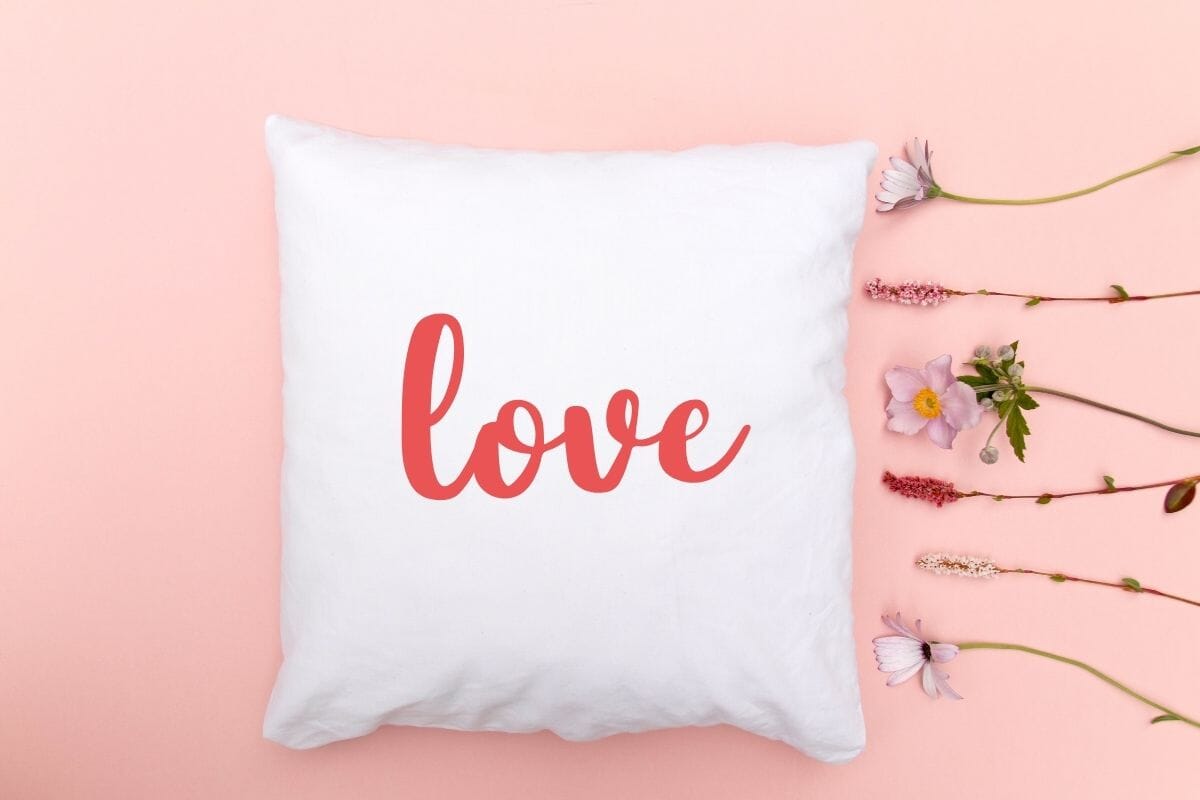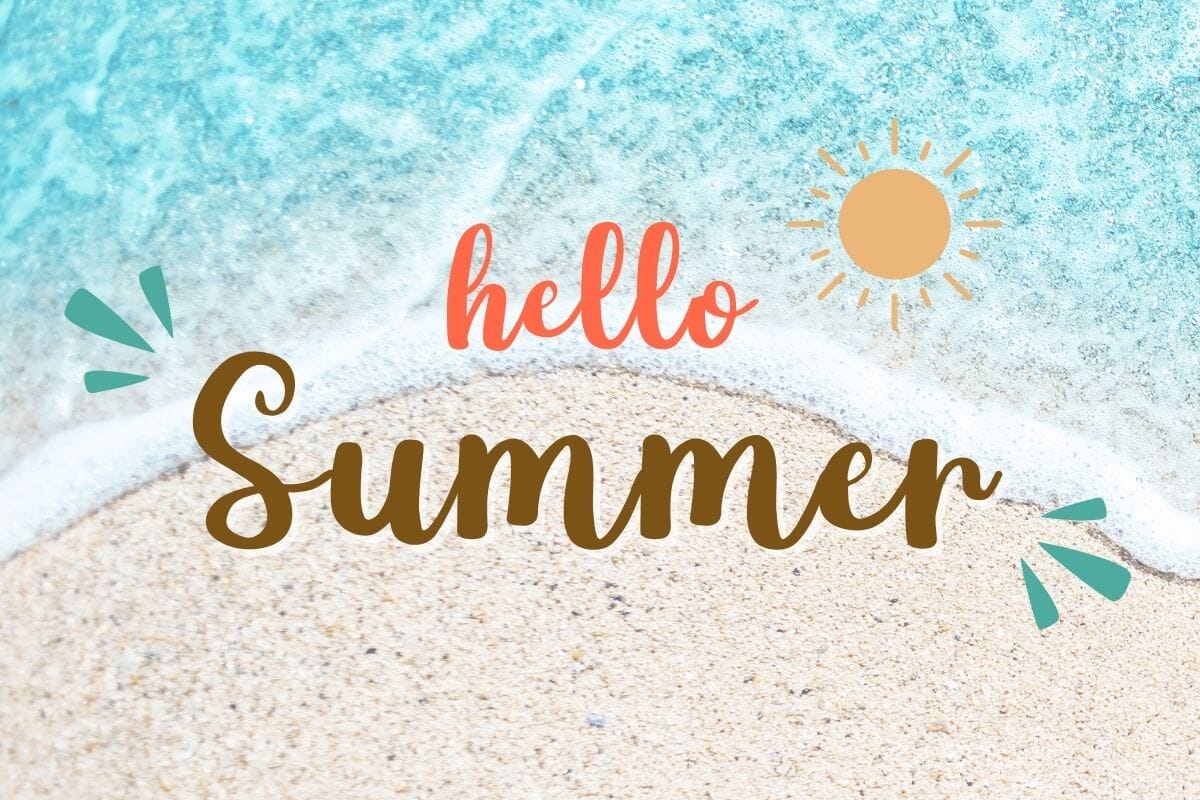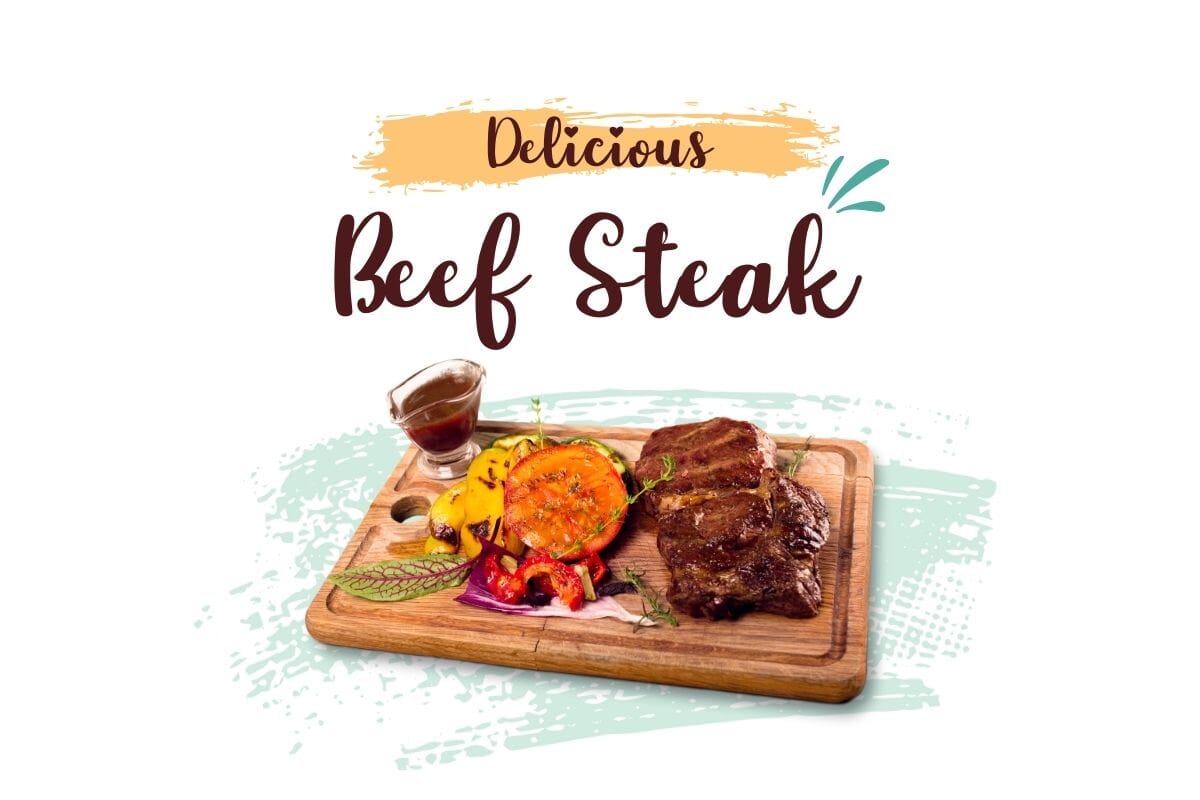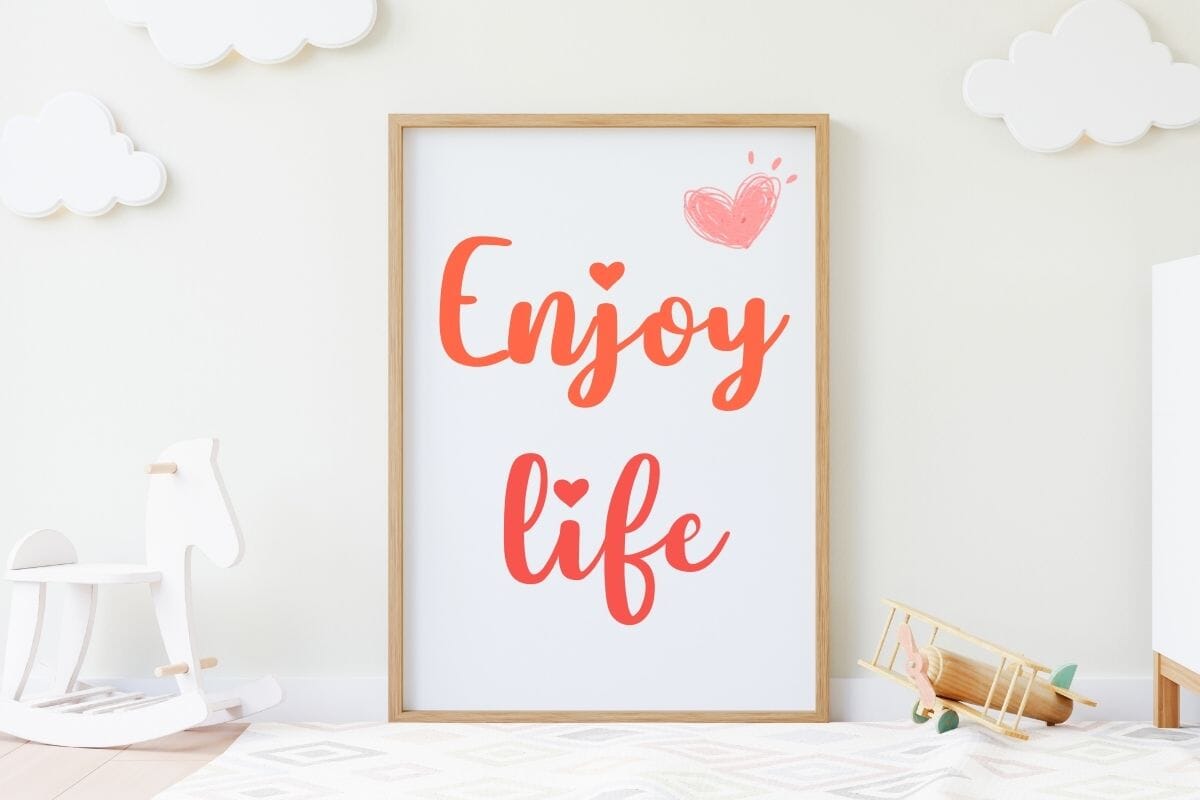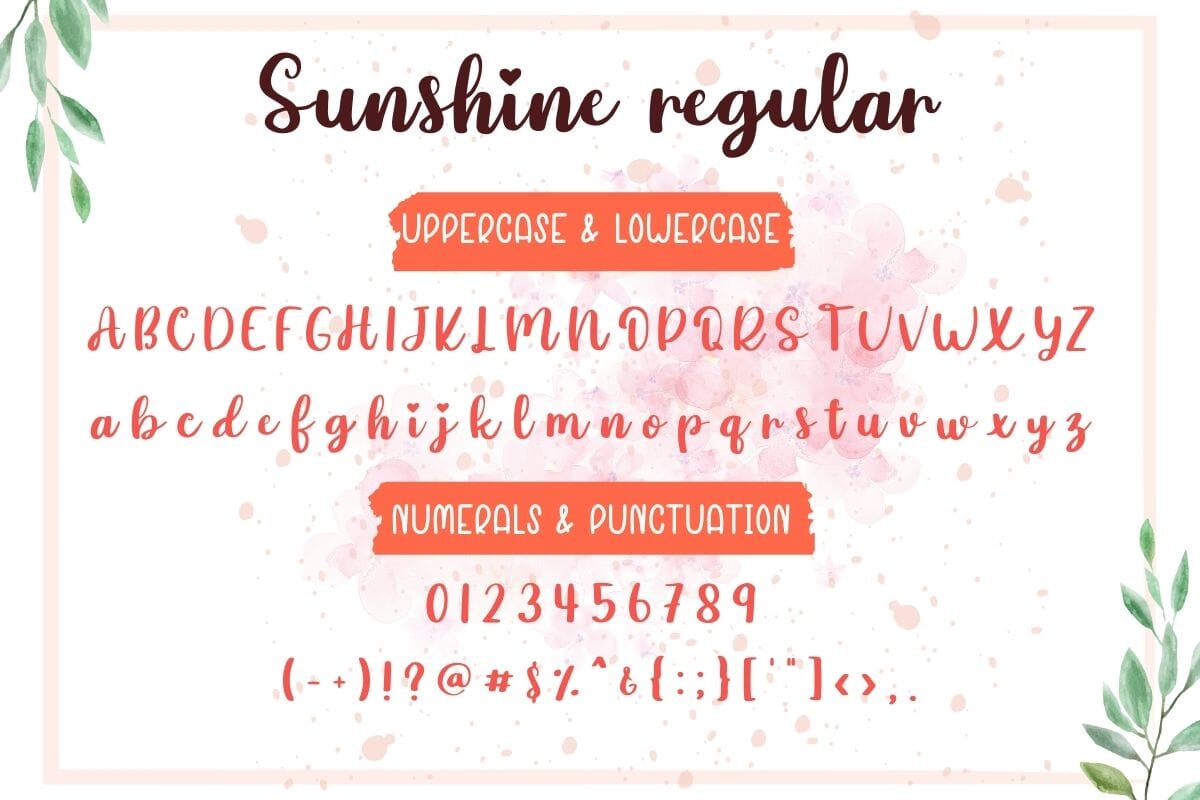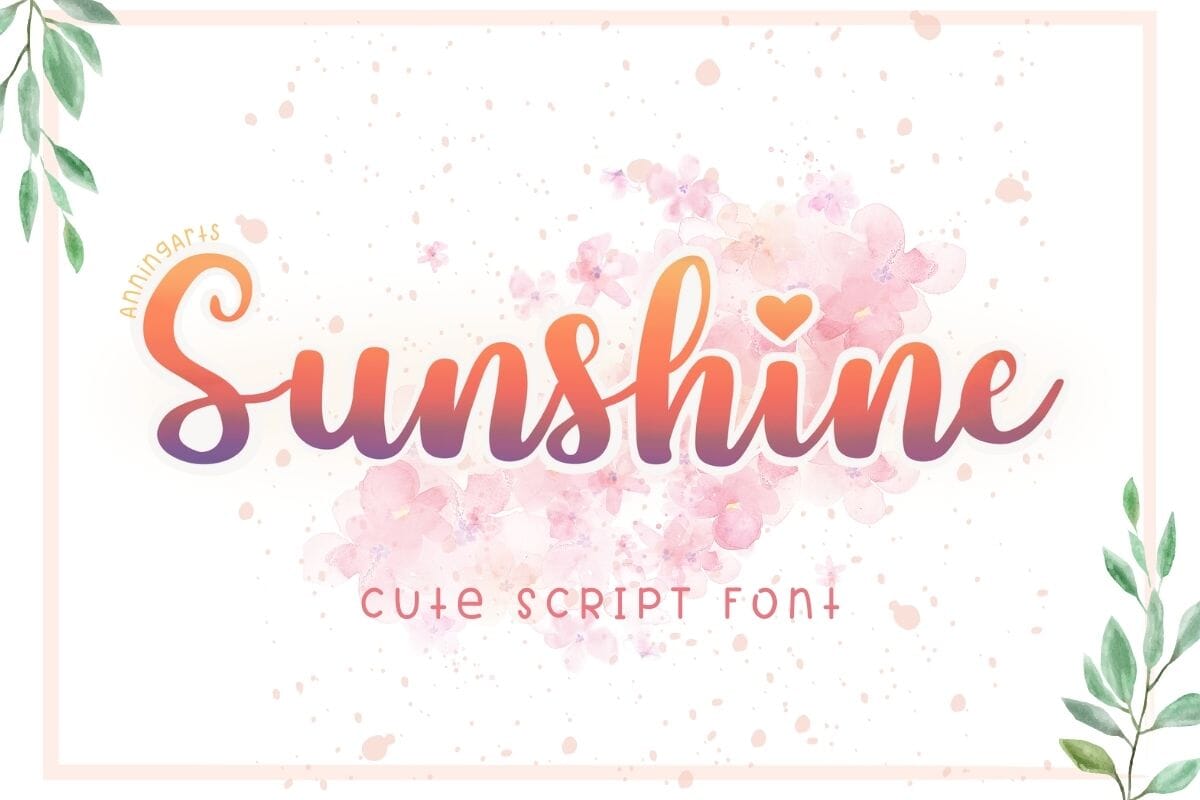
Sunshine – Cute Script Font
About Sunshine – Cute Script Font
Sunshine is a cute handwritten script font. This font is a cute character with continuous writing. Even though it looks generic but charming, makes your work more beautiful. You can use it to create birthday cards, wedding invitations, beautiful art, social media posts, and more!